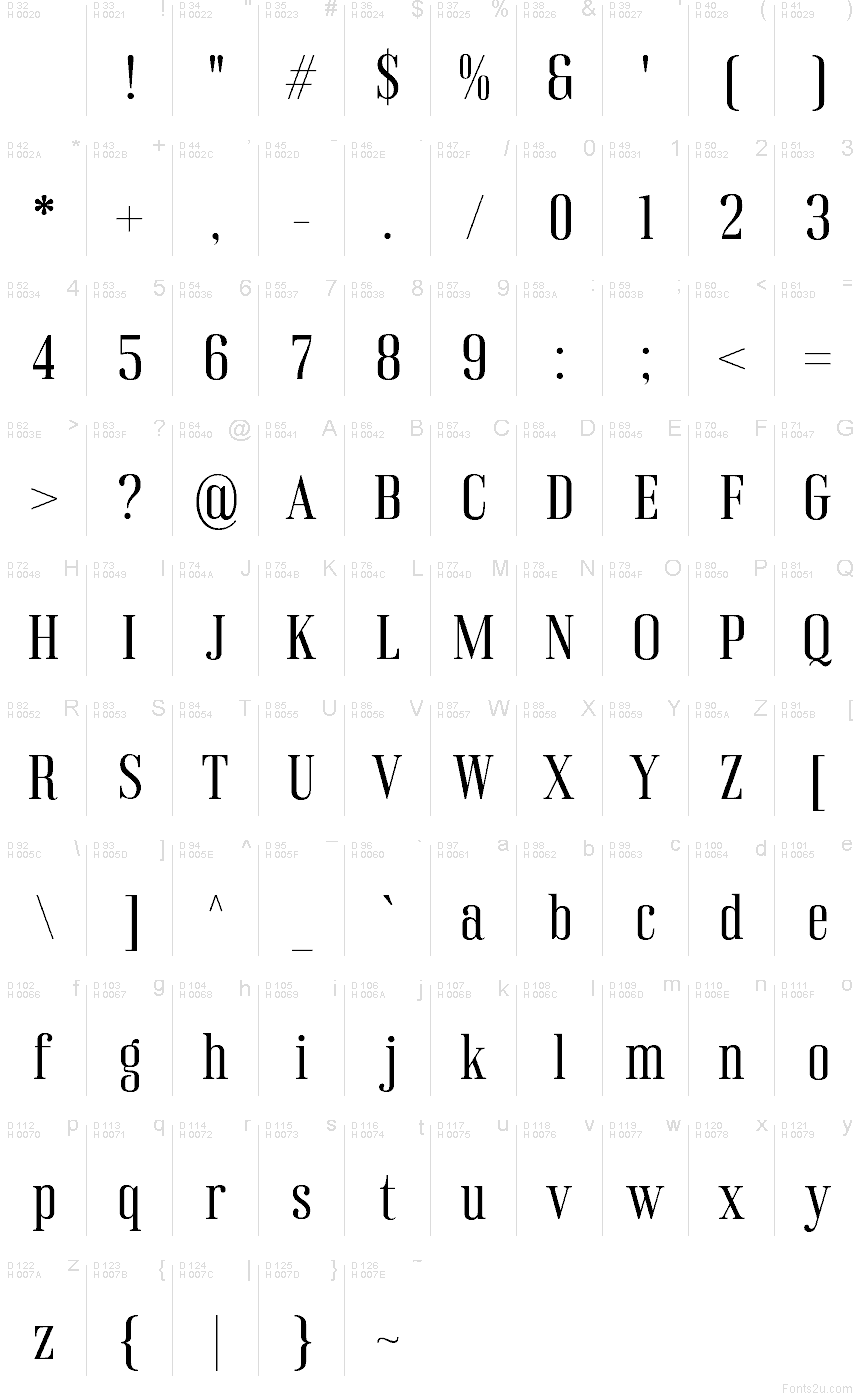
Rinella-Regular
Rinella, by RantauType, is a free modern serif with a fashion-leaning, high-contrast voice. The letters feel tall and poised, mixing slim hairlines with fuller vertical strokes and neat, crisp serifs that give the font a refined editorial rhythm without turning stiff.
It fits naturally in magazine mastheads, beauty packaging, boutique branding, book covers, and restaurant menus where a little polish goes a long way. As a free font, Rinella also suits title cards and short headline settings, since its narrow, elegant shapes and pronounced contrast bring presence even in a few words.